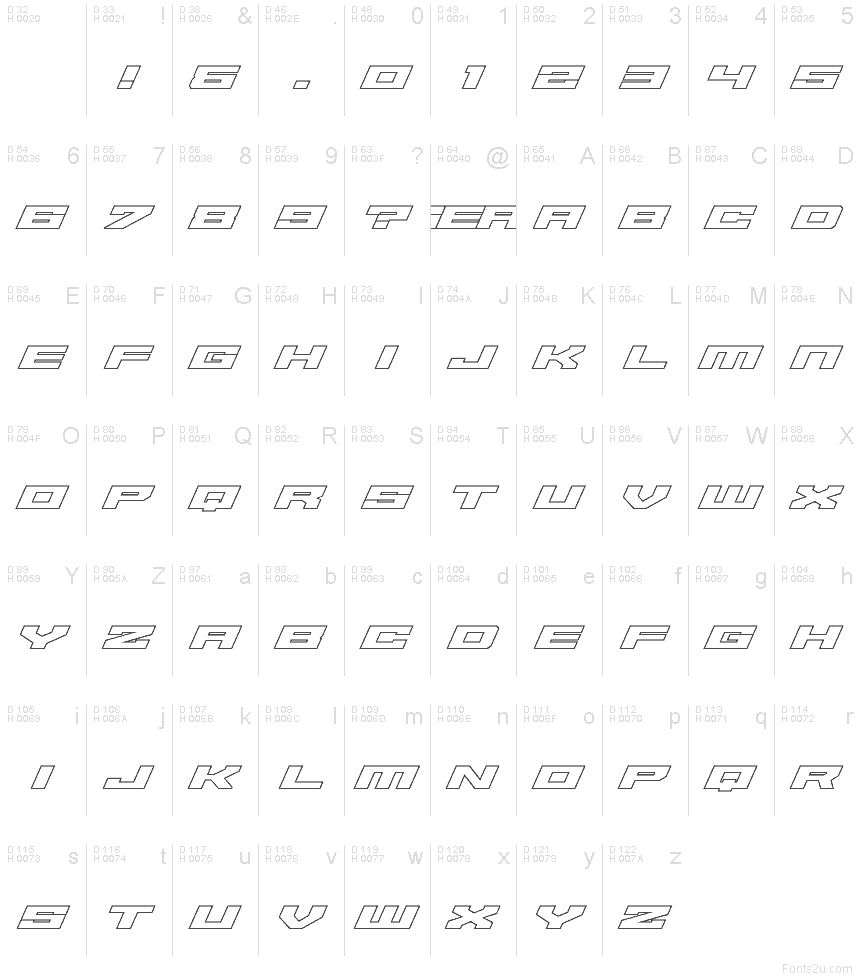
Gear6-White
Gear6 White font by Youssef Habchi is a free outlined techno display font. Built around a hard-leaning, aerodynamic slant, it slices across the page with crisp, beveled edges and hollow strokes that feel like speed lines. The Gear6 family DNA shows in its tight geometry and consistent angles, giving headlines a sleek, engineered rhythm without feeling cold.
Using Gear6 White, your words read like motion: great for esports logos, sci‑fi posters, automotive branding, tech event banners, streaming overlays, gadget packaging, and bold album art. This free font loves generous tracking and big sizes; pair it with a simple geometric sans for body copy to let the outline glow.